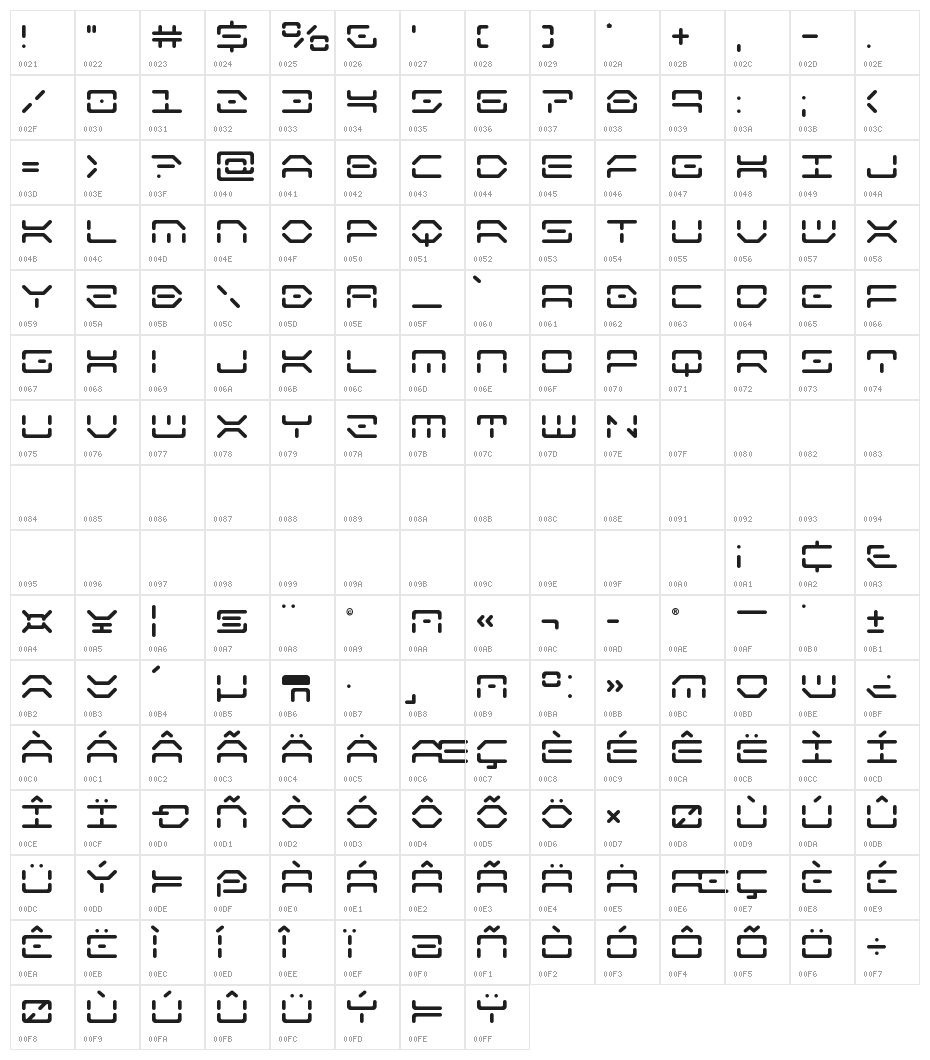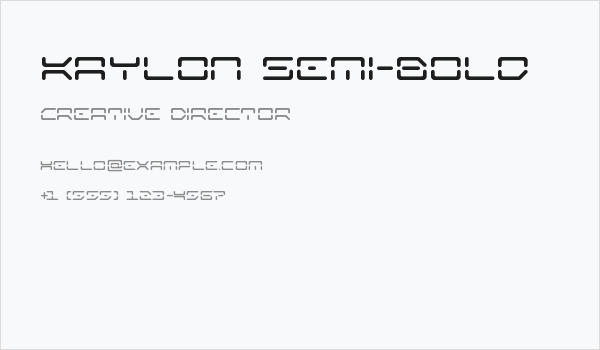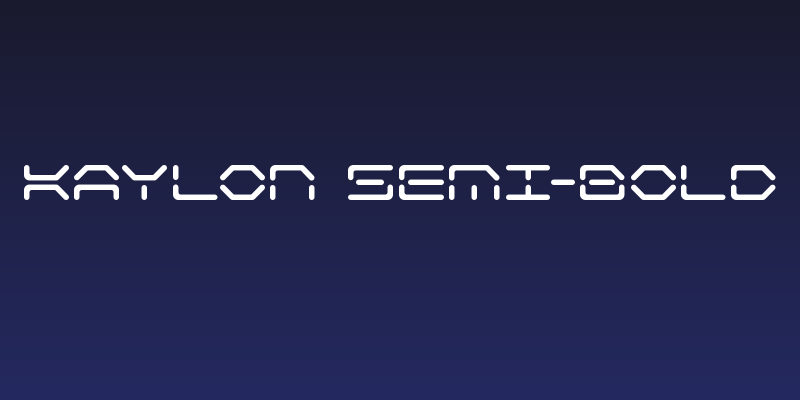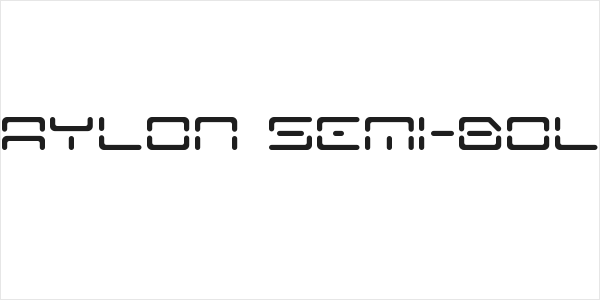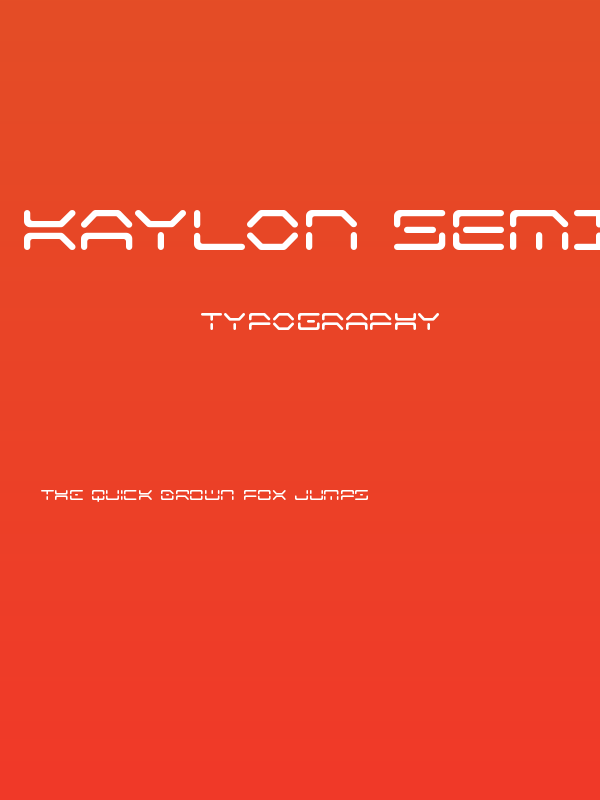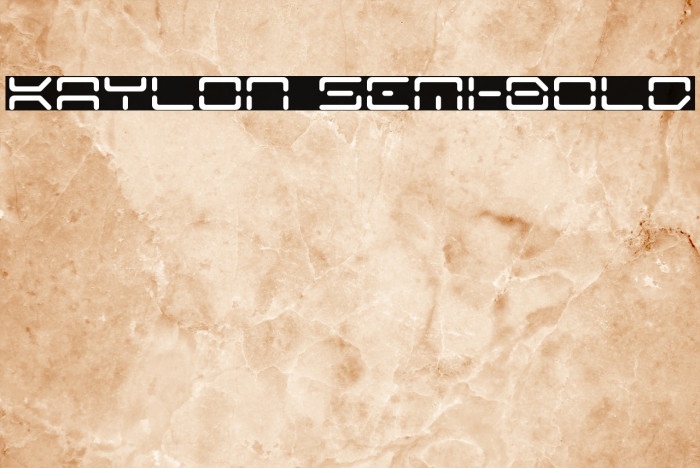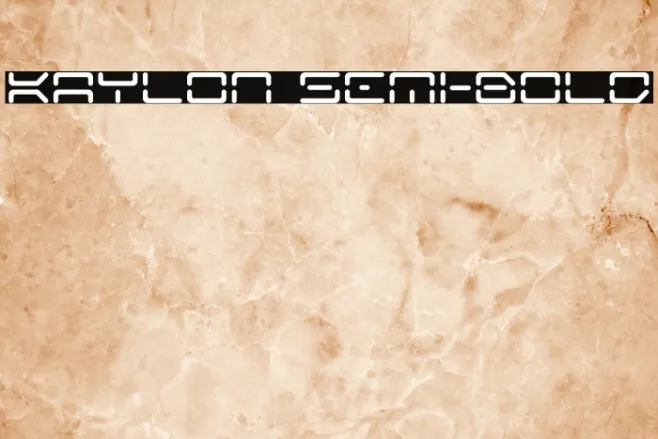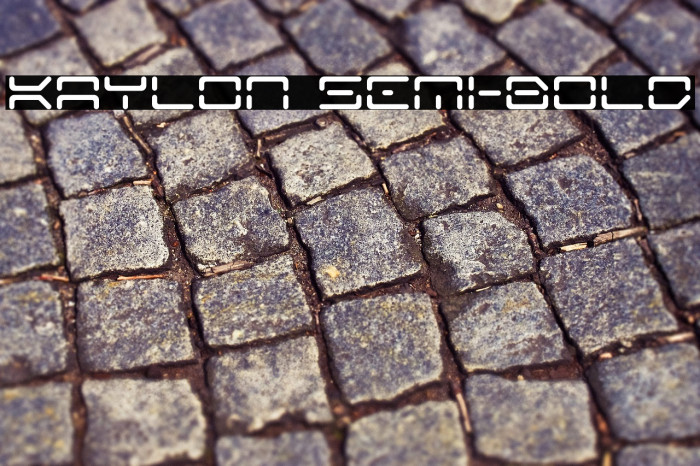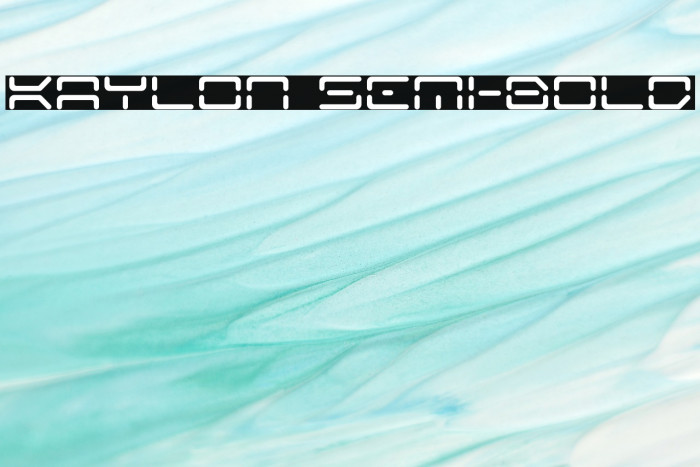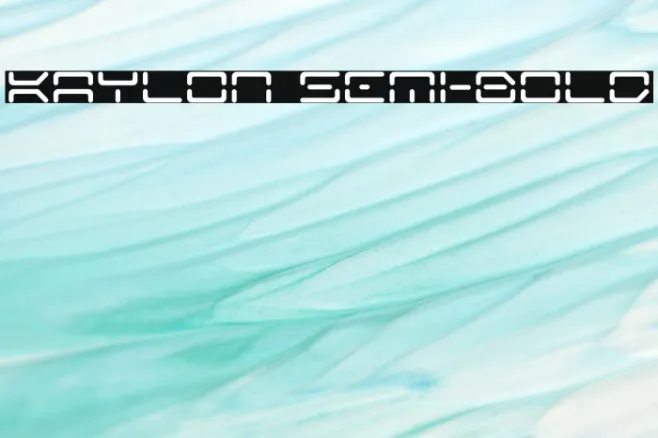
Kaylon Semi-Bold Font
Kaylon Semi-Bold Description
This font features a futuristic and geometric design, characterized by its rounded edges and hollow interior spaces. The uppercase and lowercase letters maintain a consistent style, with a uniform thickness that gives a cohesive appearance. The numbers and special characters follow the same design principles, ensuring a seamless integration across all characters. The font's unique structure makes it stand out, offering a modern and tech-inspired aesthetic. Its clean lines and distinct shapes make it suitable for projects that require a contemporary and innovative look.
| Proposed Projects | Ideal for technology branding, sci-fi themed designs, video game interfaces, and modern advertising campaigns. |